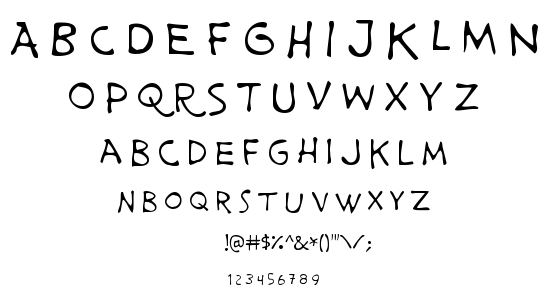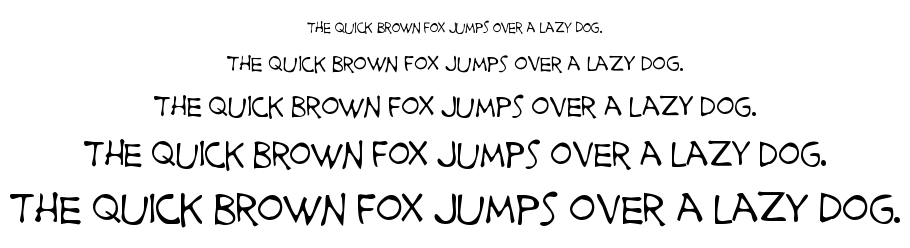
Prime Minister of Canada
Prime Minister of Canada Font
Prime Minister Of Canada is a free-and-easy, hand lettered cartoon font. Don’t forget to read the files inside the zip for details. Updated in 2012.